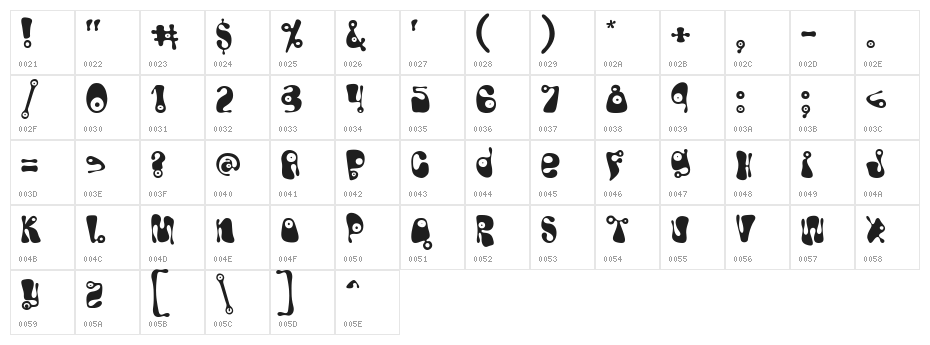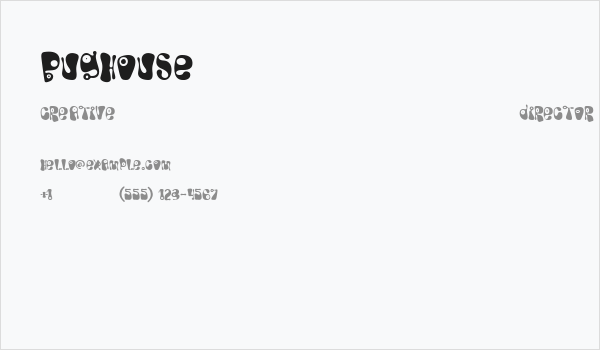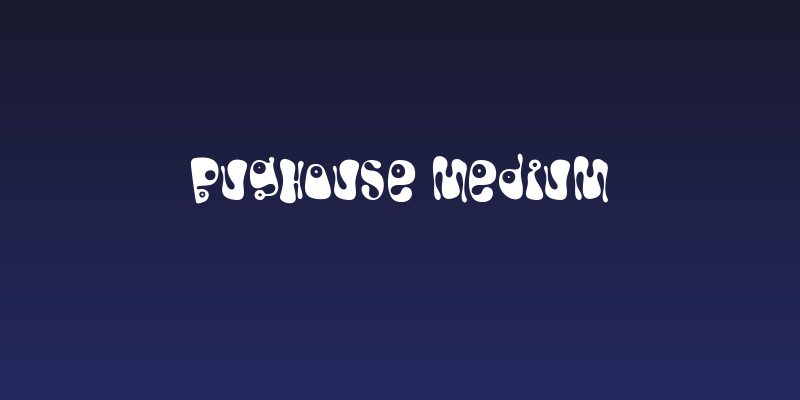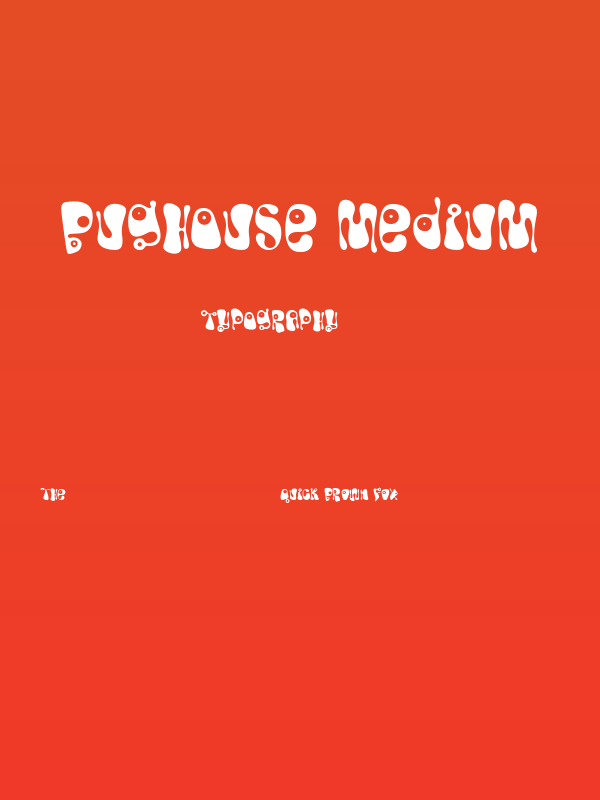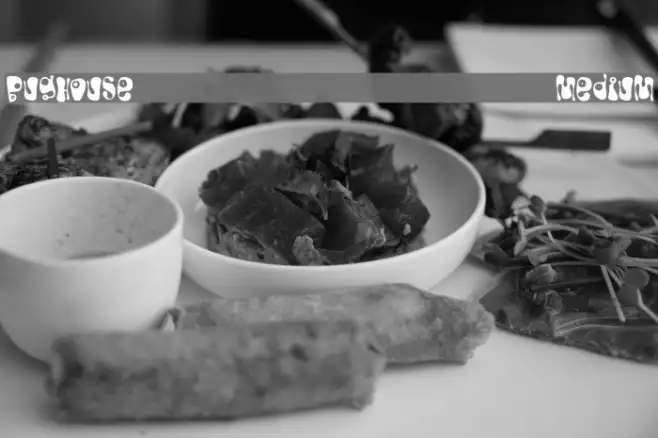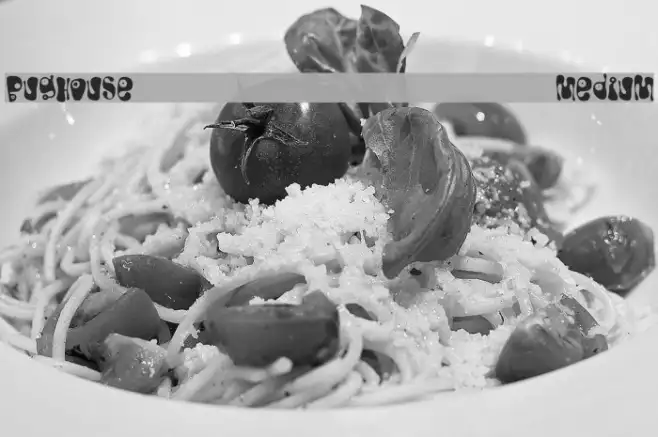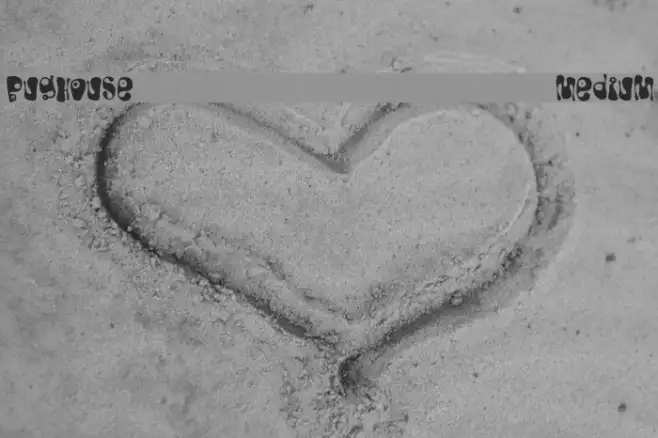
Bughouse Medium Font
Bughouse Medium Description
This font features a playful and whimsical design, characterized by its bold, organic shapes and unique, eye-catching details. The letters are rounded and irregular, with some incorporating playful elements like dots and swirls that give it a quirky, almost cartoonish appearance. The overall look is bold and dynamic, making it ideal for projects that require a fun and engaging visual style. The font's distinctive personality makes it stand out, perfect for creative and unconventional designs.